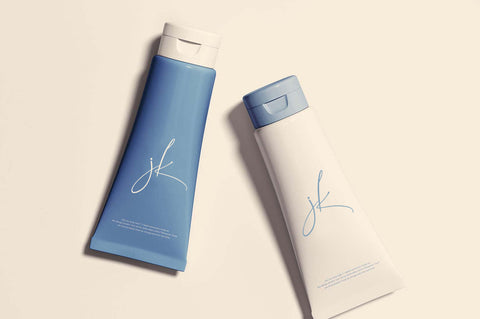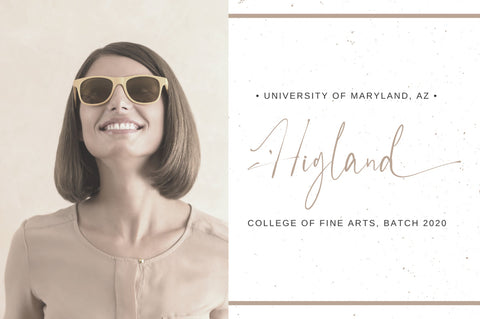
Austhedik Elegant Font
Austin Signature Font is minimalistic script with beautiful ligature and alternate font.
Contemporary handwriting fonts with ligatures and alternative styles ready to add unique look and bloom on your design
It easily cooperating together For Magazine, Movies, or Book Titles. For Photography, Wedding Invitation, Restaurant Menu or T-shirt Design. For Flyers, Banner Ads, web and printing. From Food and Fashion to a Cosmetics product
• Ligature Feature